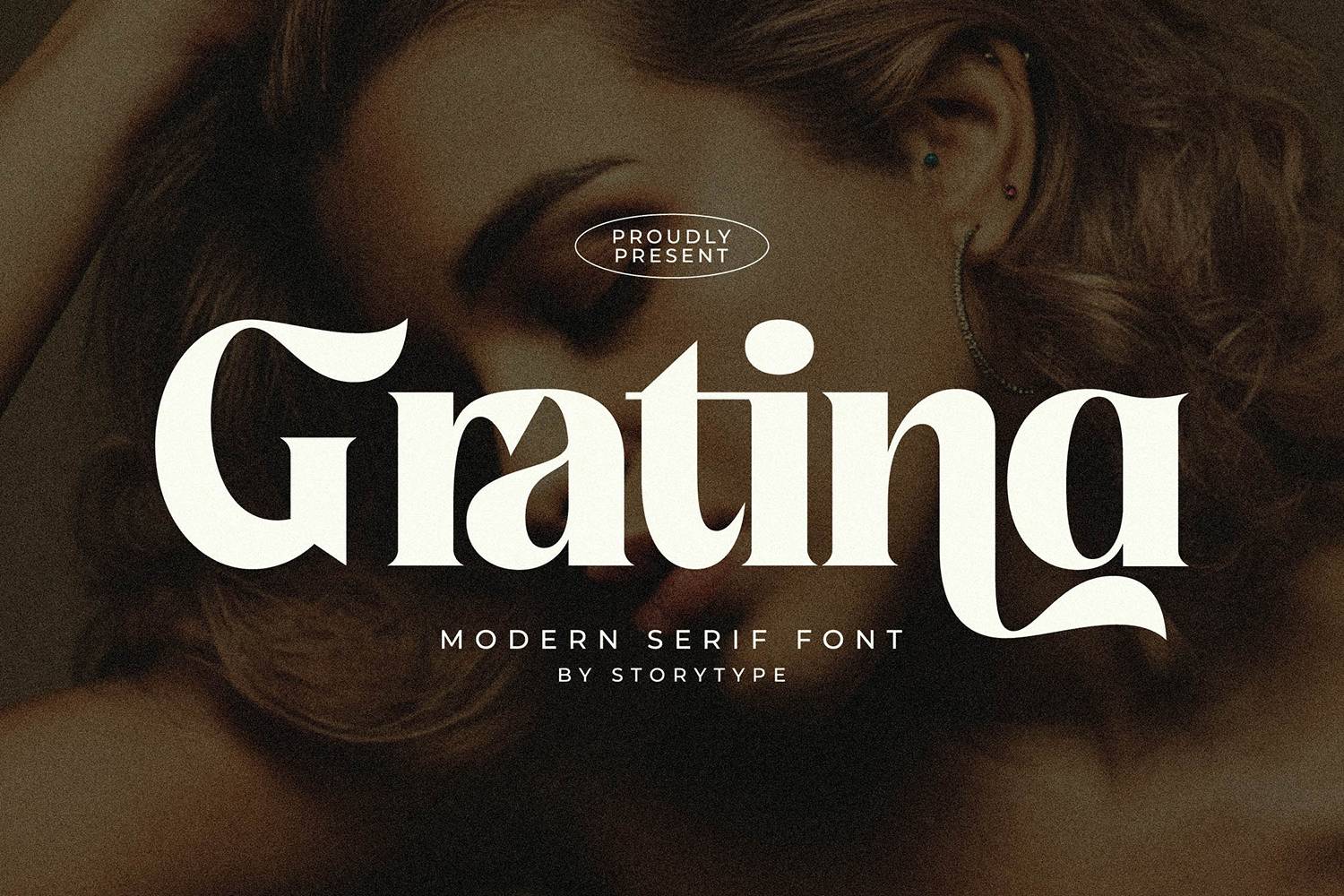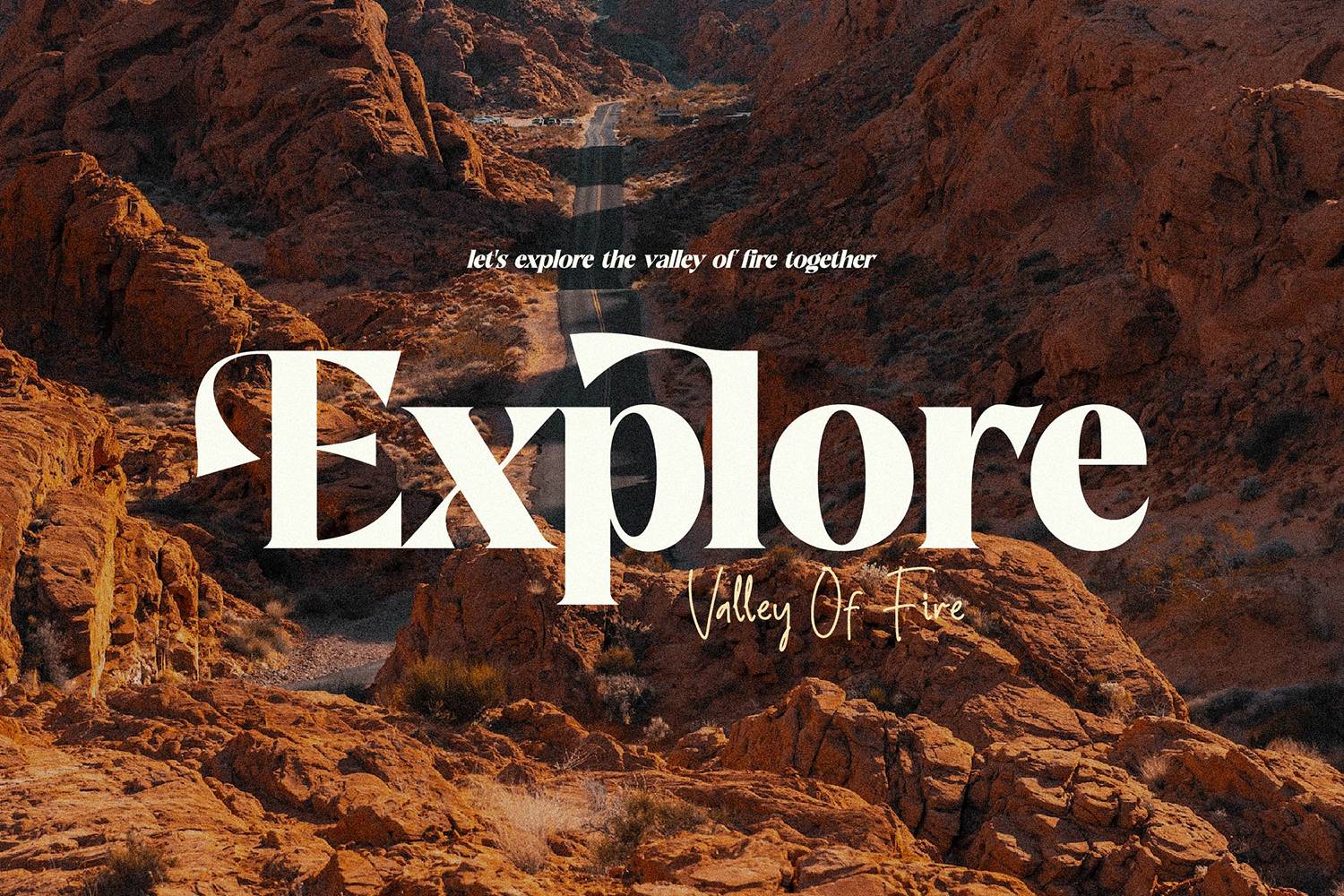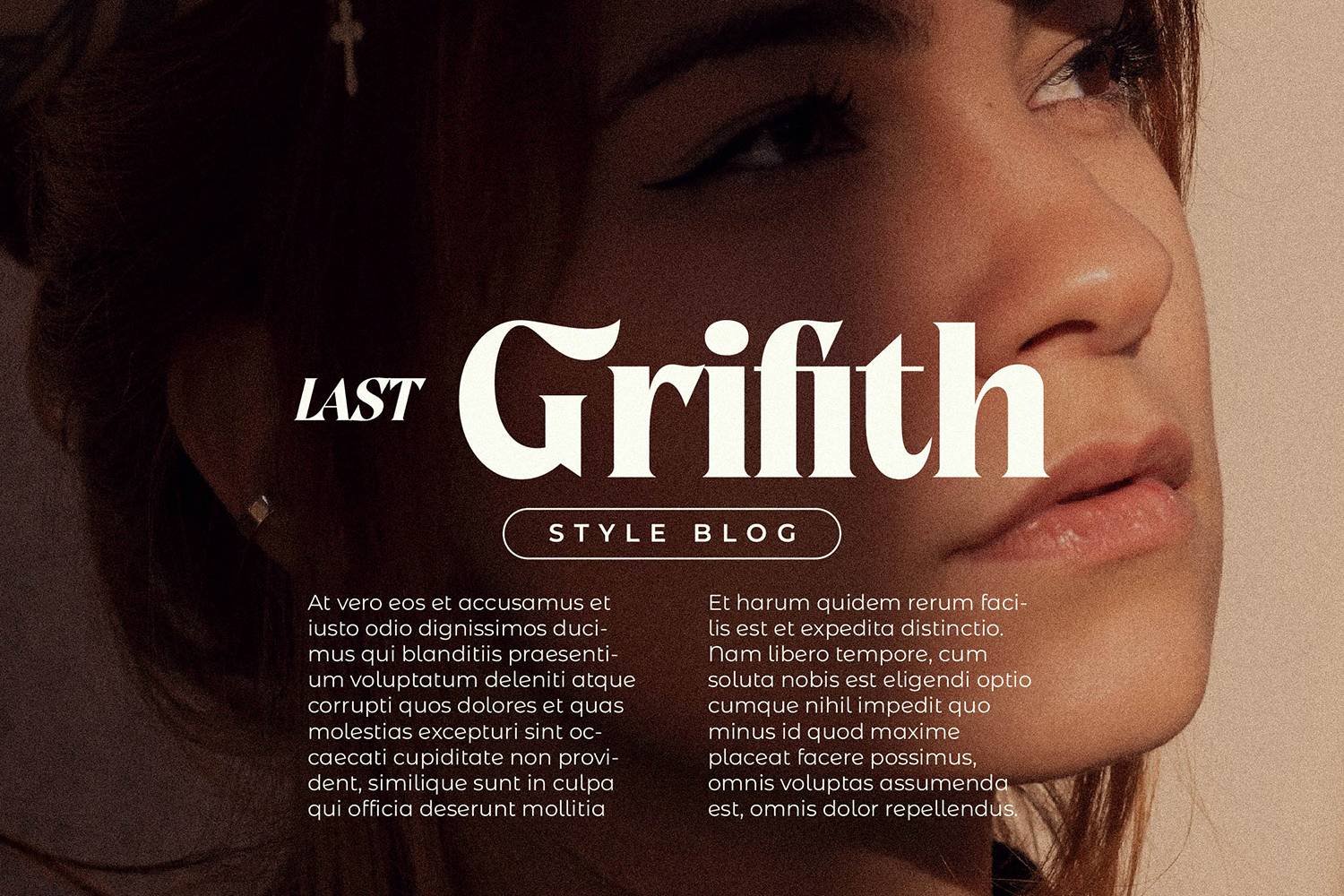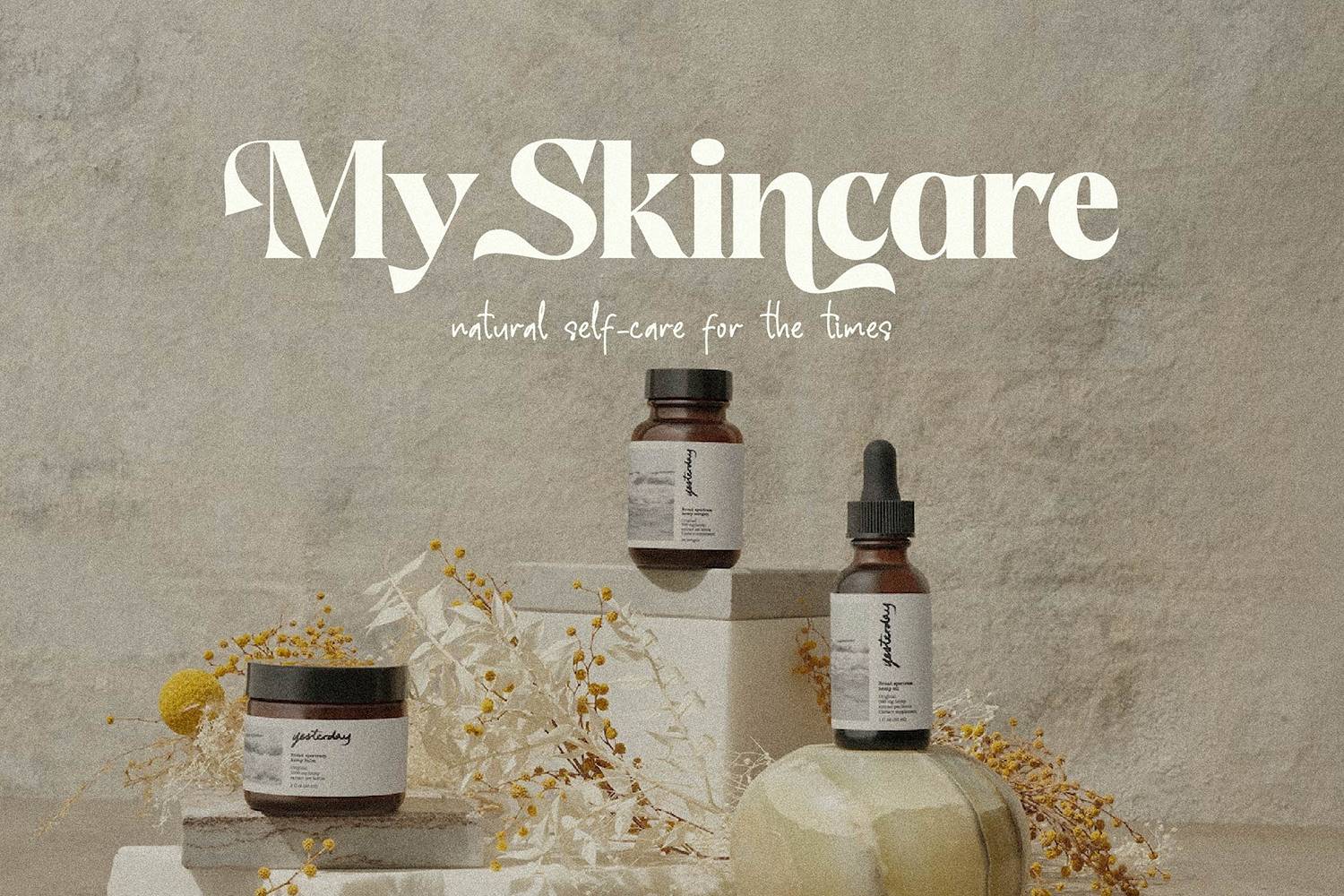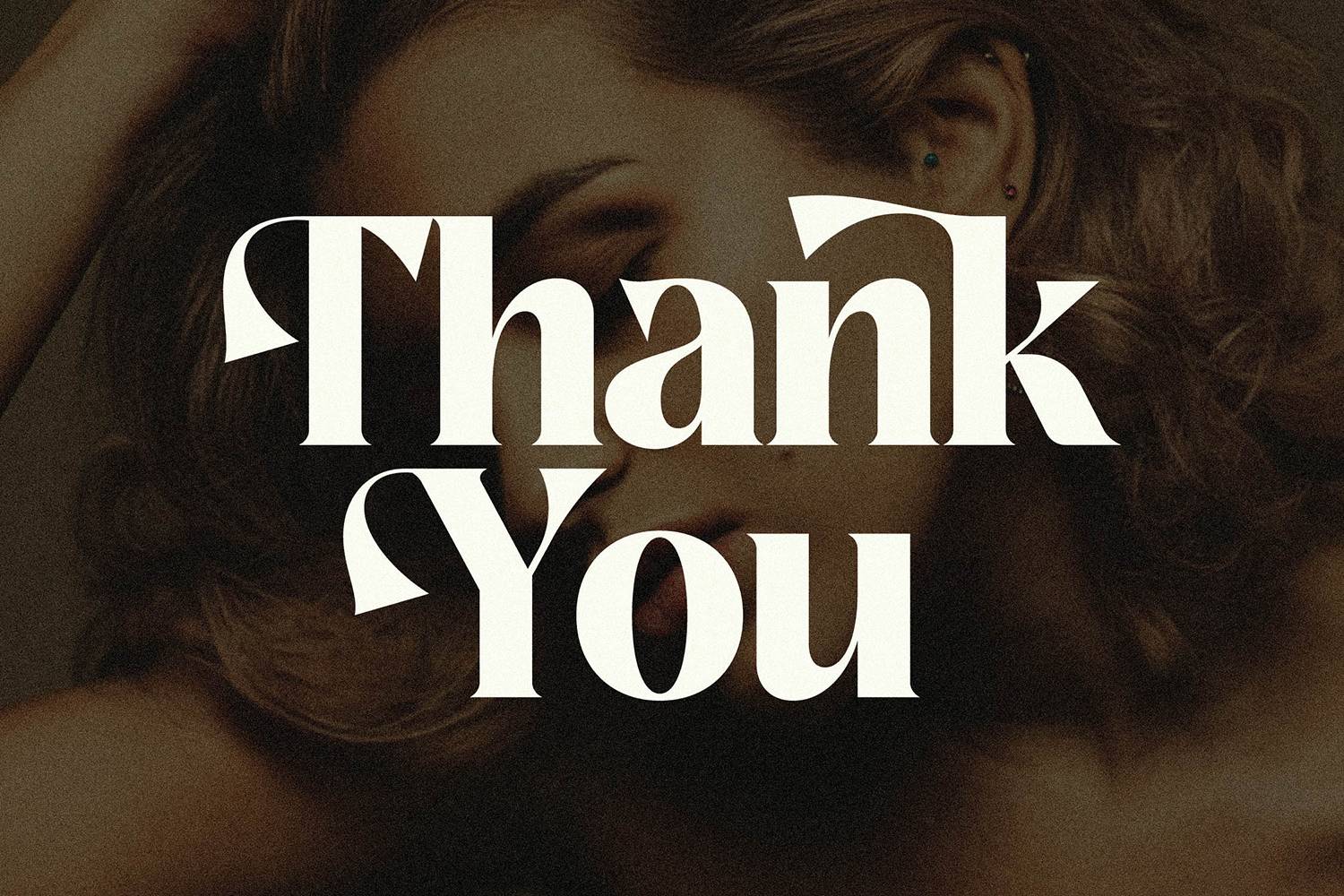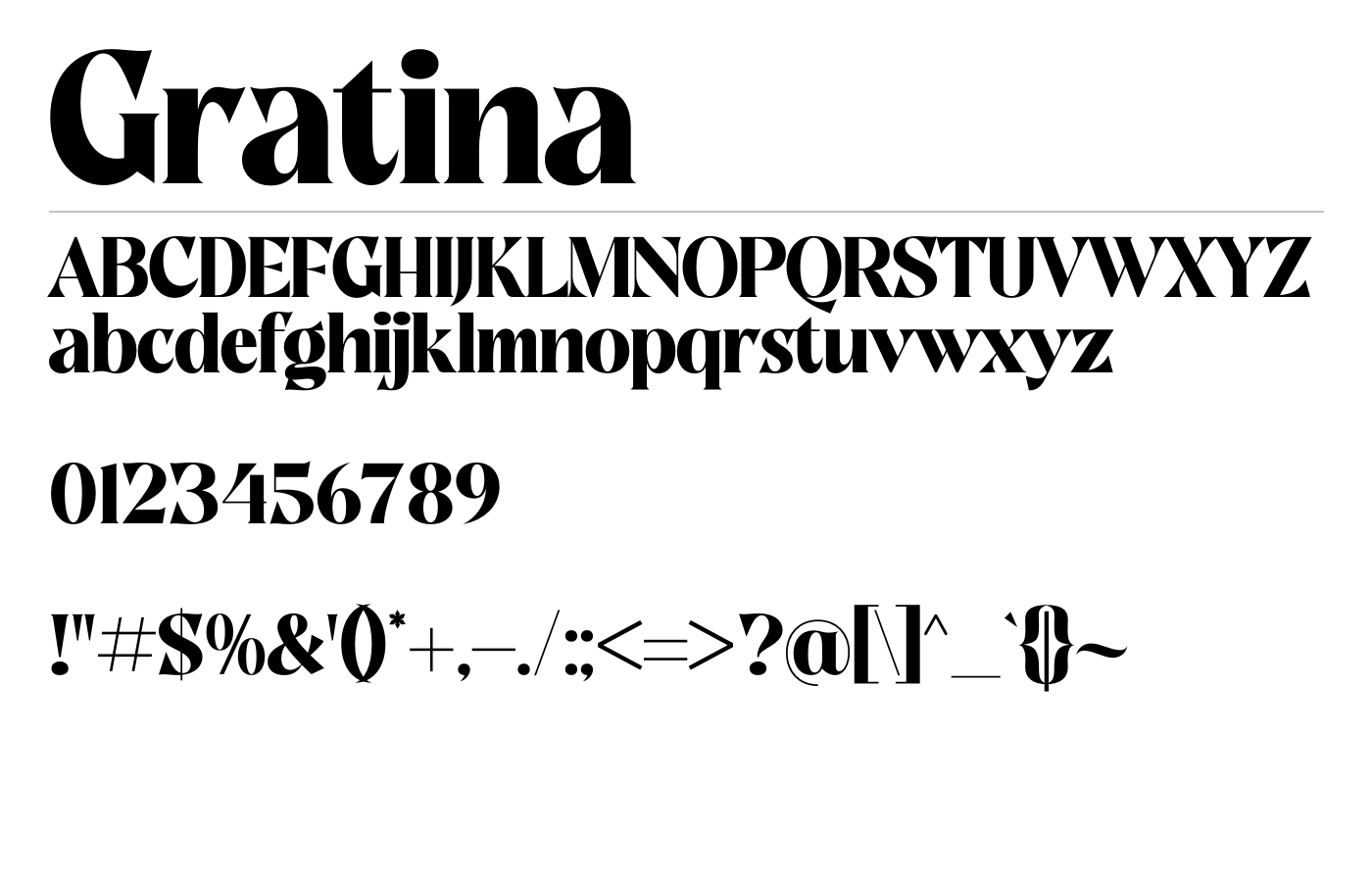
Gratina is a bold, high-contrast serif font with a classic Didone style, featuring elegant sharp serifs and a strong vertical rhythm that exudes sophistication and luxury. Its distinctive letterforms and refined details make it ideal for fashion branding, editorial headlines, and upscale packaging where a timeless yet striking presence is desired.
Gratina Font
About Gratina Font